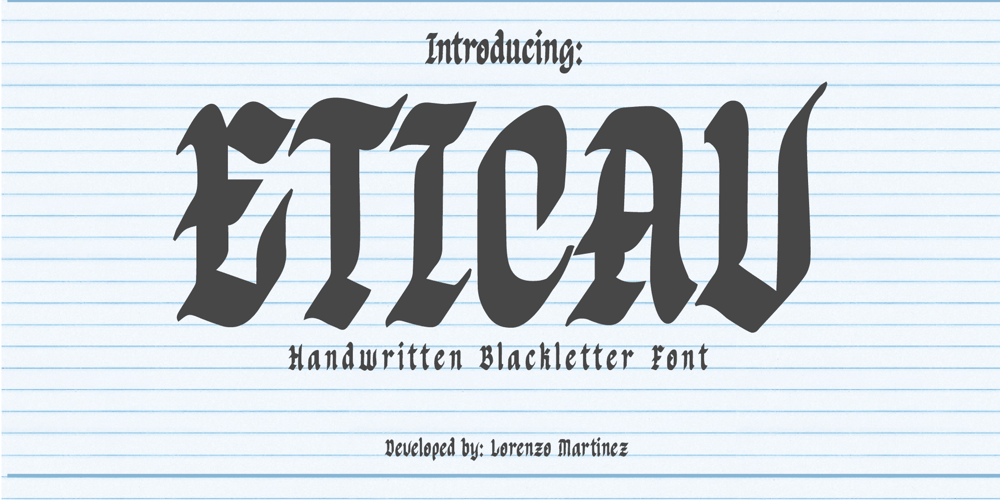
Eticav
Eticav font
Eticav Font Family was designed by Lorenzo Gabriel Martinez and published by Lurinzu Studios. Eticav contains 1 styles and family package options. “Eticav” is a handwritten black letter font that is inspired by lettershapes from jeepney, school and public poster signages that is profound around Cavite (my own province )This font is made to look as serious and “not so-serious looking” depending how it is used. This font can basically be used in almost all medias and sizes(with of course proper caution)*This font includes letters, numbers, stylistic alternates, multilanguage support, and all essential marks needed.